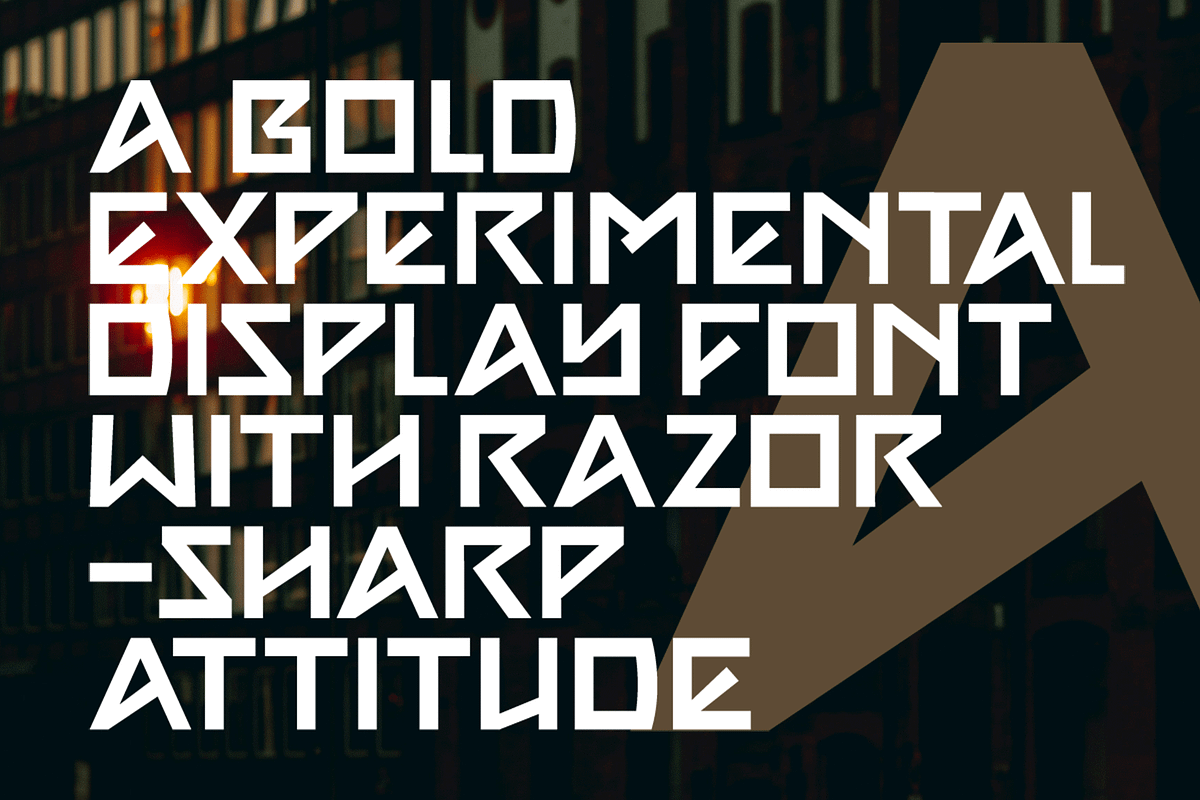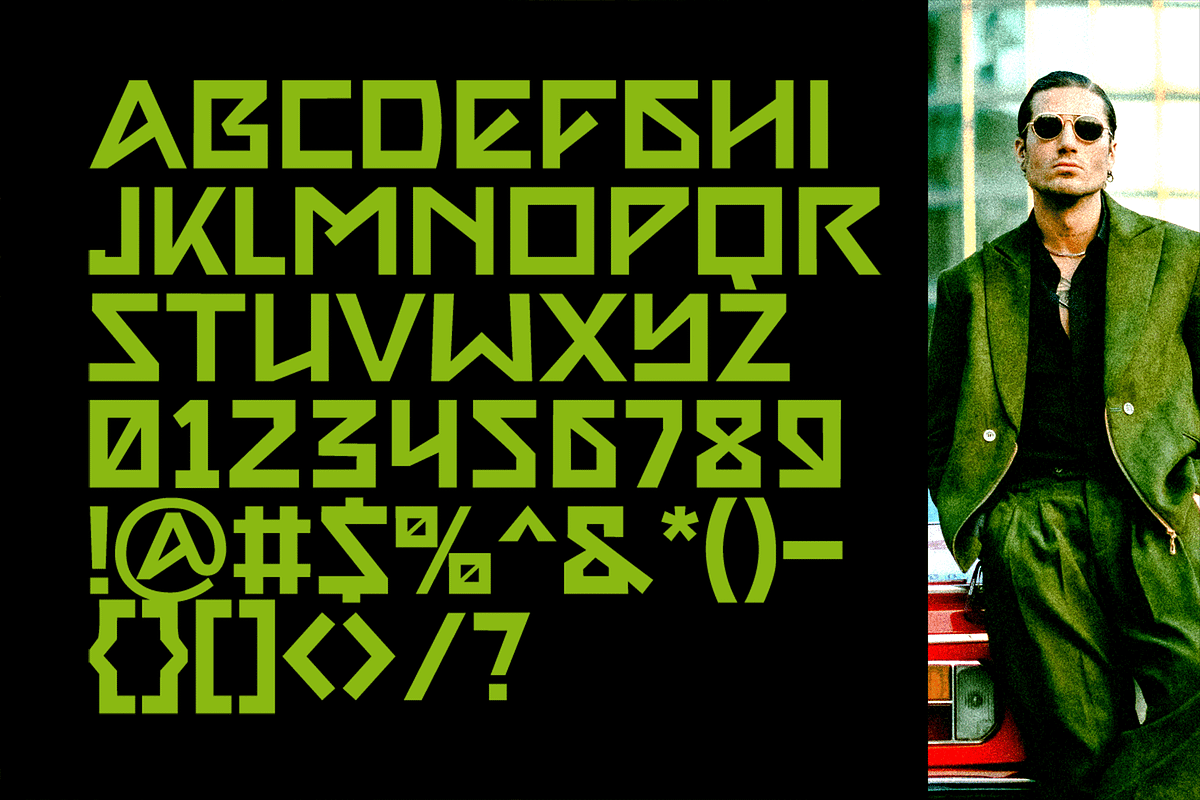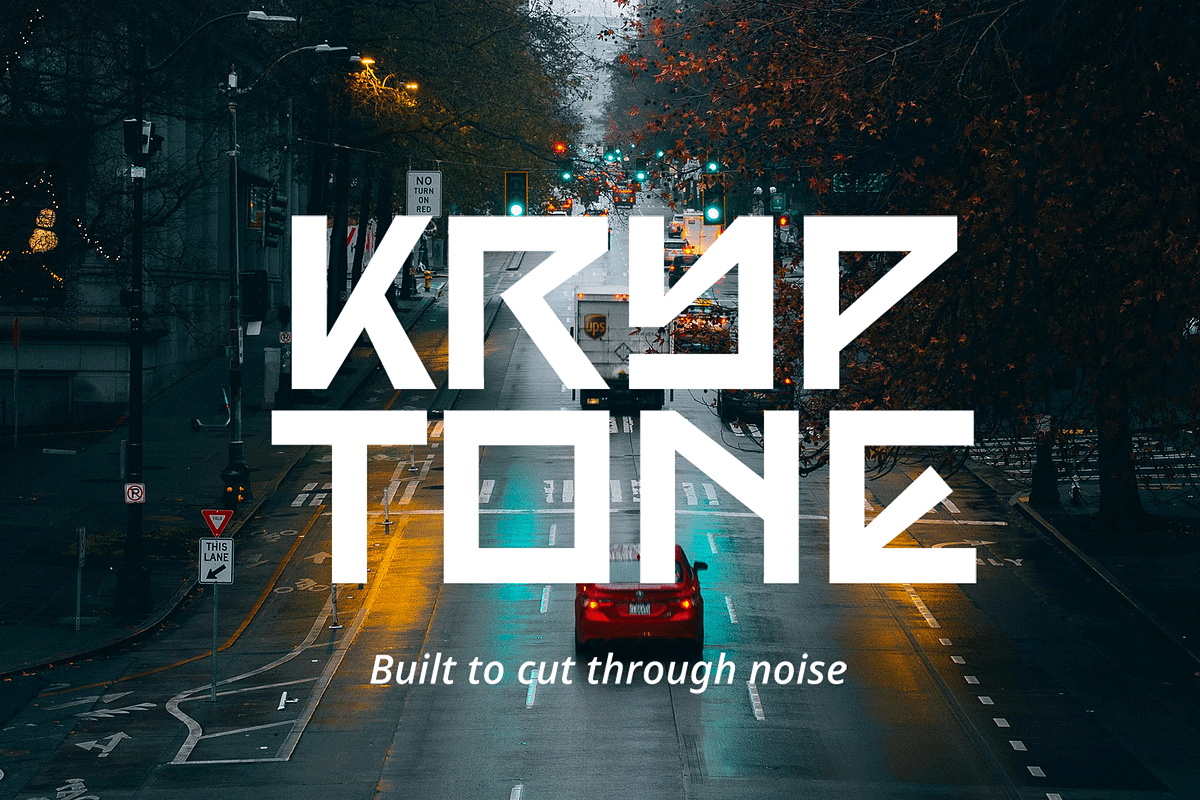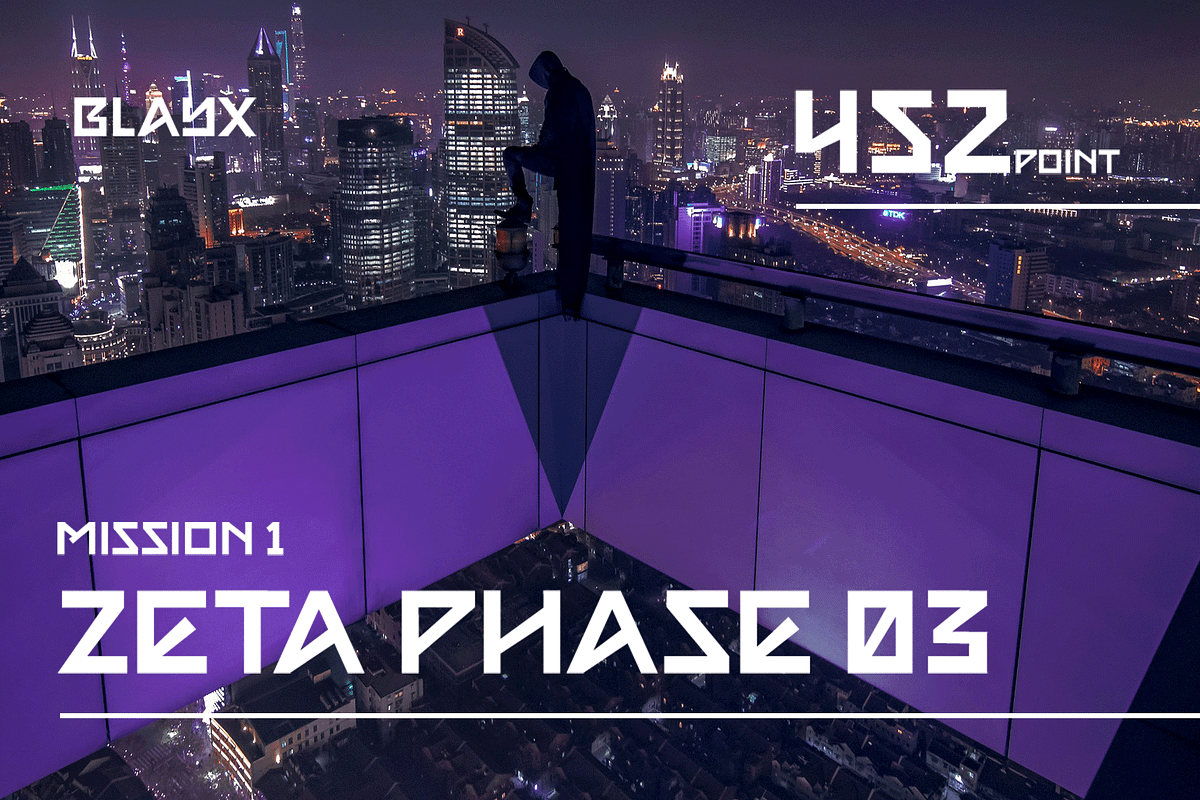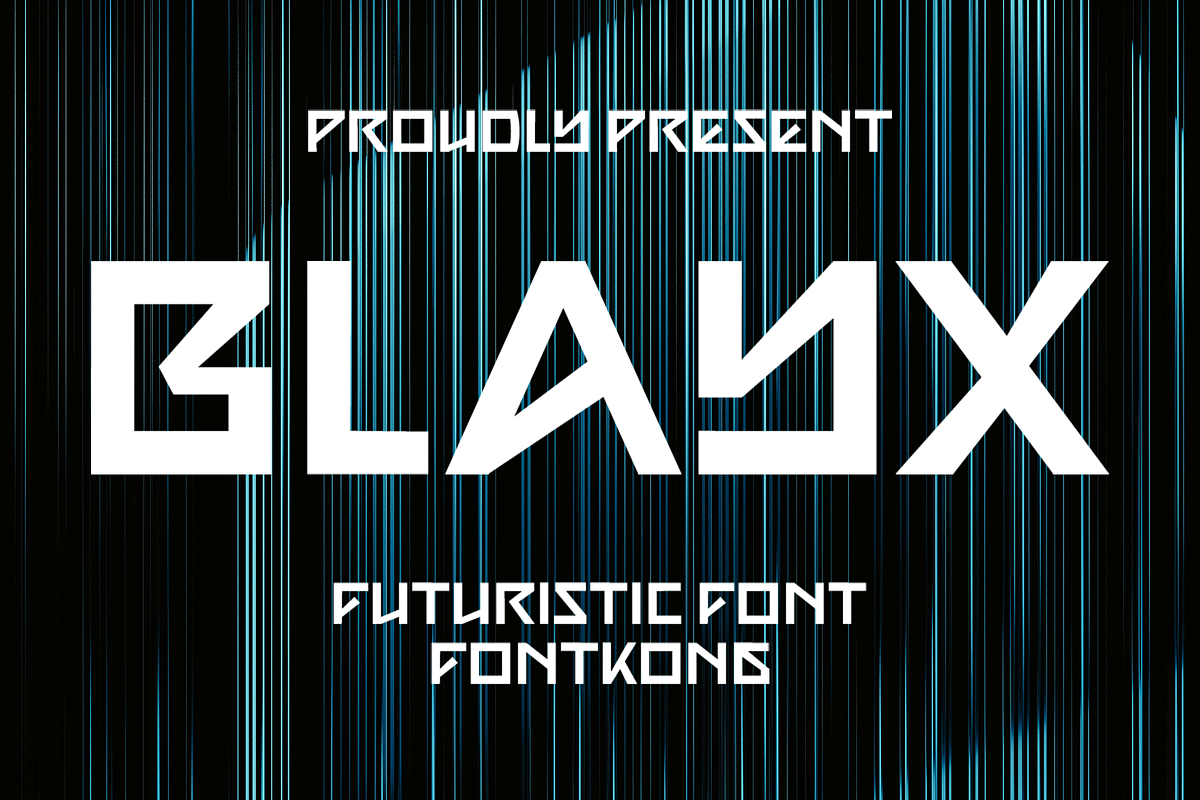
Blayx – Futuristic Display Font
Blayx is a futuristic display font with sharp angles, sleek lines, and a digital-tech aesthetic. Designed for projects that demand a modern and forward-thinking look, Blayx is ideal for sci-fi themes, technology branding, esports graphics, posters, and modern UI interfaces.
Its geometric structure and innovative style give your designs a high-tech, cutting-edge vibe that feels straight out of a cyberpunk future. Step beyond the ordinary with Blayx and bring futuristic energy to your visual identity.